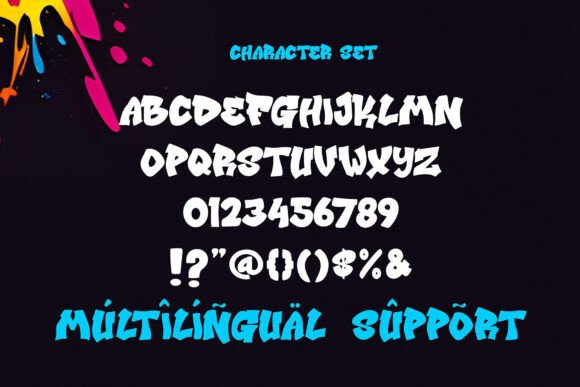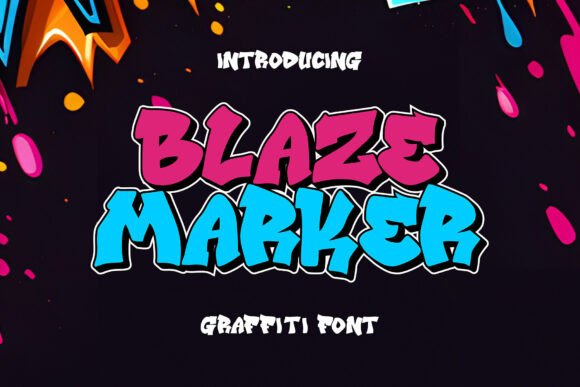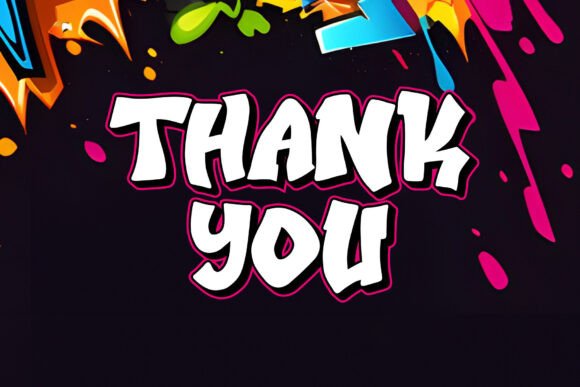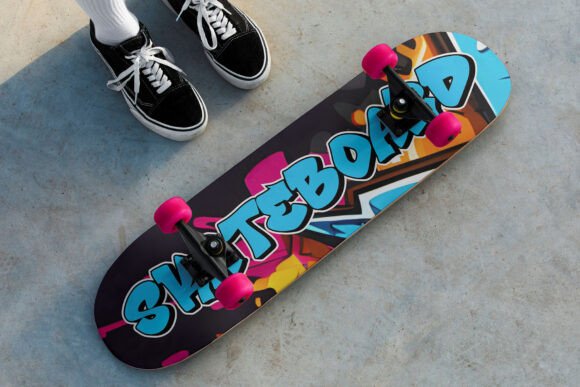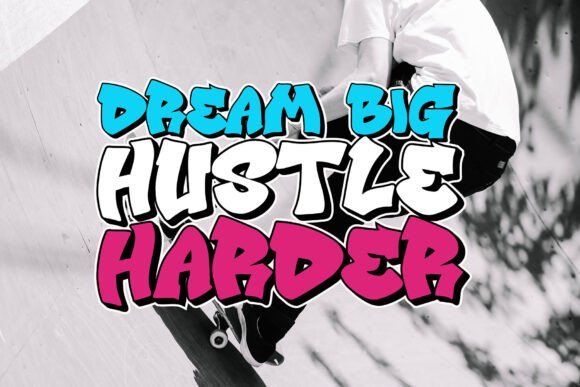
Unleashing Your Inner Rebel: The Power of Blaze Marker Font
Have you ever felt that rush of creative energy when you’re about to bring your idea to life? The blank canvas stares back at you, waiting for the perfect brushstroke or the bold stroke of a marker. For designers who crave that urban edge and dare to be different, the wait is over. Introducing Blaze Marker Font, a typography that embodies the spirit of street art and digital creativity.
This dynamic font is more than just a tool – it’s a partner in crime, ready to help you infuse your designs with a rebellious attitude and a touch of authenticity. With its robust strokes and marker texture, Blaze Marker Font is the perfect match for projects that demand an urban edge. Whether you’re a streetwear enthusiast or a digital creative, this font will help you unleash your inner rebel and bring your boldest ideas to life.
Blaze Marker Font Key Features
- Font Size: The font comes in a single size, but it’s highly scalable, making it suitable for use in various applications, from small text to large headings.
- Unique Characteristics: The font features a unique, distressed marker style that gives it a hand-drawn, artisanal feel, perfect for adding a personal touch to designs.
- Font Weight: Blaze Marker Font comes in a range of weights, from Light to Extra Bold, allowing designers to choose the perfect weight to match their design’s tone and style.
- Language Support: The font supports a wide range of languages, including Latin, Cyrillic, and Greek scripts, making it a versatile choice for designers working on multilingual projects.
Blaze Marker Font Review
Overall, I think Blaze Marker Font has a lot of potential, but it also has some limitations that prevent it from being a top-notch choice for designers.
- Unique design style: Blaze Marker Font has a distinctive, hand-drawn look that can add a touch of personality to any design project.
- High-quality rasterization: The font renders well at various sizes, making it suitable for use in both small and large-scale designs.
- Good legibility: Despite its bold, expressive design, Blaze Marker Font is still easy to read, even at smaller font sizes.
- Limited character set: Blaze Marker Font’s character set is somewhat limited, which can make it difficult to use for more complex text-based projects.
- No italic or bold versions: While the font’s regular style is great, the lack of italic or bold versions can make it less versatile for certain design applications.
- May not be suitable for body text: Due to its bold, expressive design, Blaze Marker Font may not be the best choice for body text or other large blocks of text.
While Blaze Marker Font has some limitations, I think it can still be a great choice for designers who are looking for a unique, expressive font to add some personality to their projects. Just be aware of its limitations and use it judiciously.
Blaze Marker Font Practical Application Guide
The Blaze Marker Font is a versatile and modern script font ideal for various design applications. To use it, follow these steps:
Tips for Getting the Most Out of Blaze Marker Font
To enhance the font’s appearance, experiment with different font sizes, colors, and combinations. Use it for headings, titles, and quotes to add a touch of modernity to your designs.
The Blaze Marker Font is suitable for:
- Food and beverage labels
- Editorials and magazine covers
Alternatives to Blaze Marker Font for Designers
Great Vibes Font is a modern, handwritten script font that is perfect for creating a fun and playful atmosphere in your designs. It is ideal for use in headings, quotes, and other areas where a touch of personality is needed. Compared to Blaze Marker Font, Great Vibes Font has a more casual and relaxed feel, making it a great choice for designs that require a friendly tone.
Alex Brush Font is a elegant, handwritten script font that is perfect for creating a sophisticated and luxurious atmosphere in your designs. It is ideal for use in headings, titles, and other areas where a touch of elegance is needed. Compared to Blaze Marker Font, Alex Brush Font has a more refined and polished feel, making it a great choice for designs that require a high-end look.
What is the recommended font size for using Blaze Marker Font effectively?
The Blaze Marker Font is designed to be highly legible at a range of font sizes, from 12pt to 72pt. For optimal readability, we recommend using font sizes between 18pt and 48pt. This will allow the font to make a bold statement while still being easy to read at a distance.